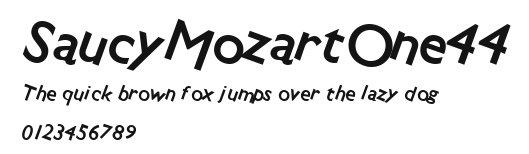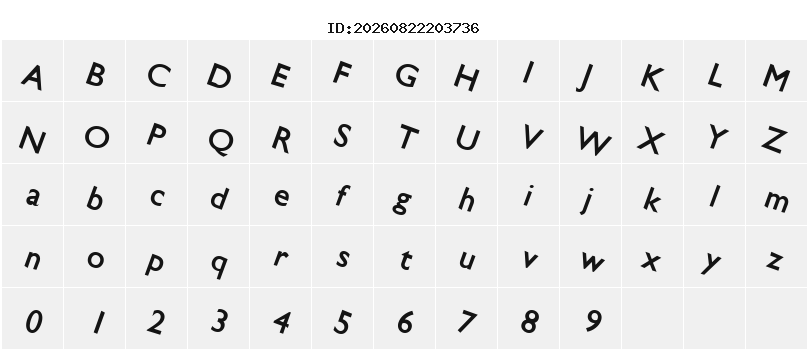
SaucyMozartOne44 Preview
• Font Name: SaucyMozartOne44
• Font ID: Altsys Metamorphosis:SaucyMozartOne44 Bold
• Full Font Name: SaucyMozartOne44 Bold
• Version: Altsys Metamorphosis:10/29/94
• PostScript Name: SaucyMozartOne44-SPBold
About SaucyMozartOne44.ttf
SaucyMozartOne44.ttf is a modern, elegant sans-serif font designed for ultimate readability and visual harmony. Perfect for branding, headlines, web design, and print materials.